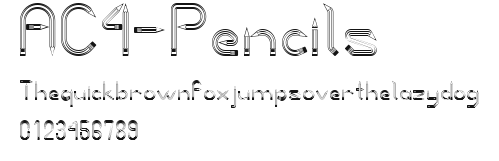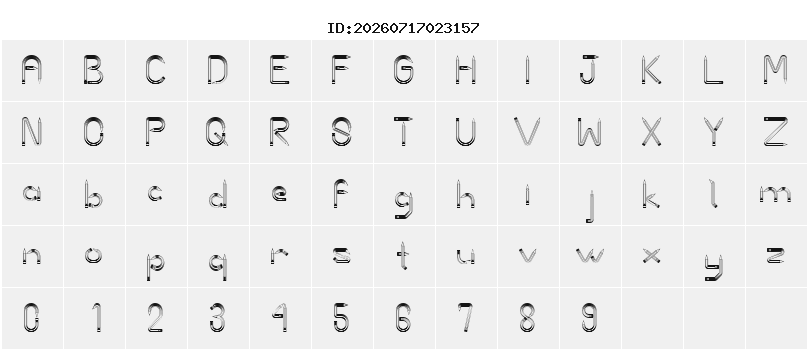
• Font Name: AC4-Pencils
About AC4-Pencils.ttf
AC4-Pencils.ttf is a modern, elegant sans-serif font designed for ultimate readability and visual harmony. Perfect for branding, headlines, web design, and print materials.